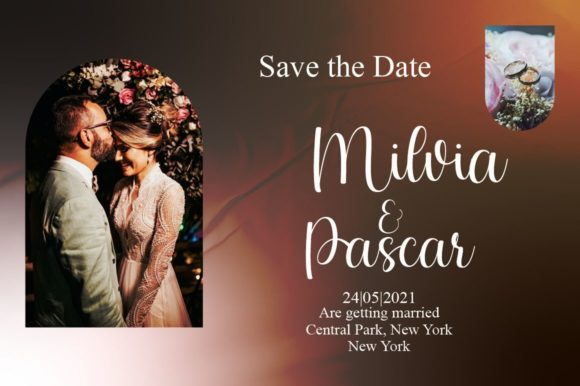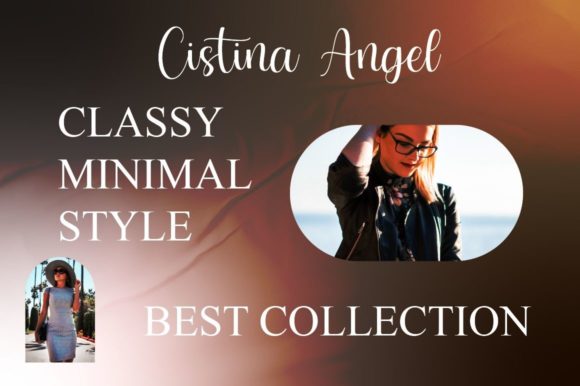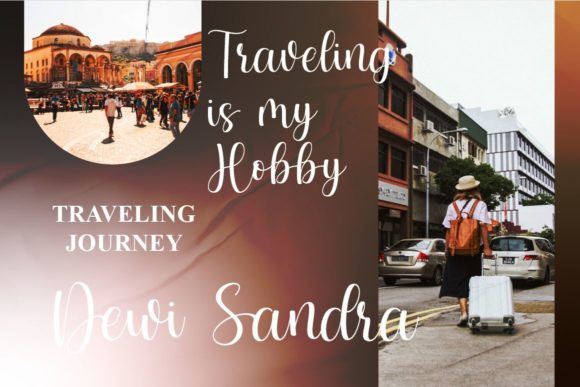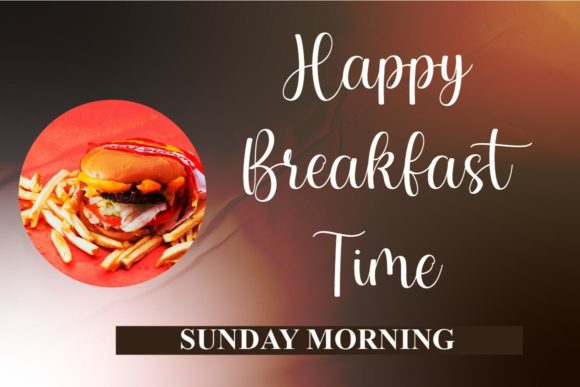
About Zaytun Font
Zaytun feels equally charming and elegant. It looks stunning on wedding invitations, thank you cards, quotes, greeting cards, logos, business cards and every other design which needs a customized touch.